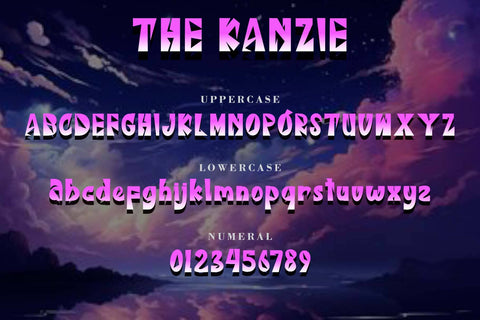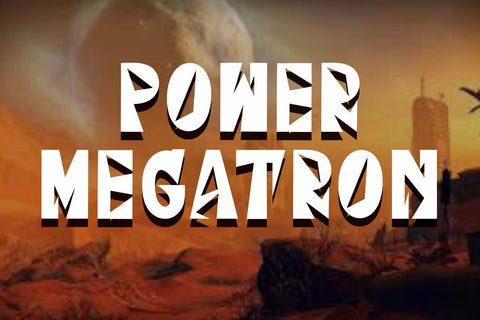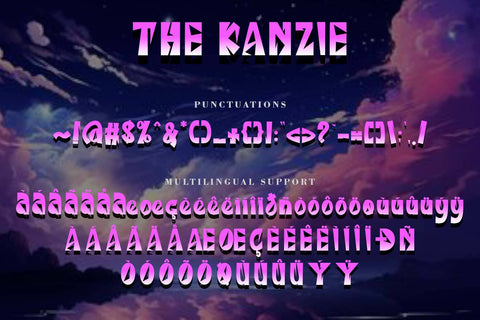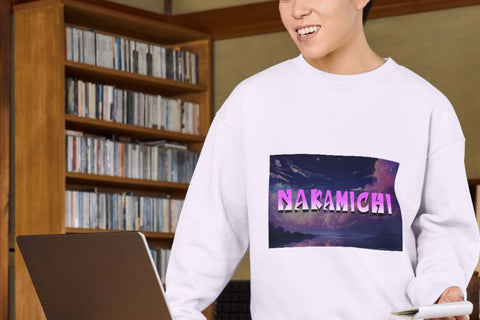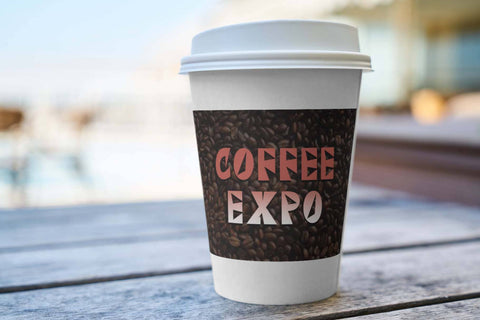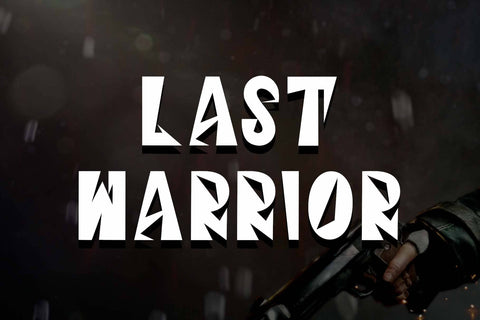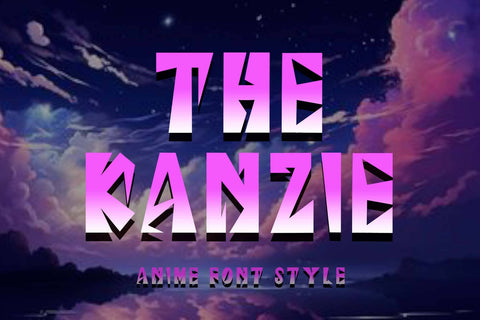
The Kanzie
"The Kanzie" is a unique and elegant display font. This font is equipped with uppercase, lowercase, numerals, punctuations and multilingual support. Very suitable for film titles, book titles, comics, super heroes, action films, banners, stickers, posters, branding, logos and others.